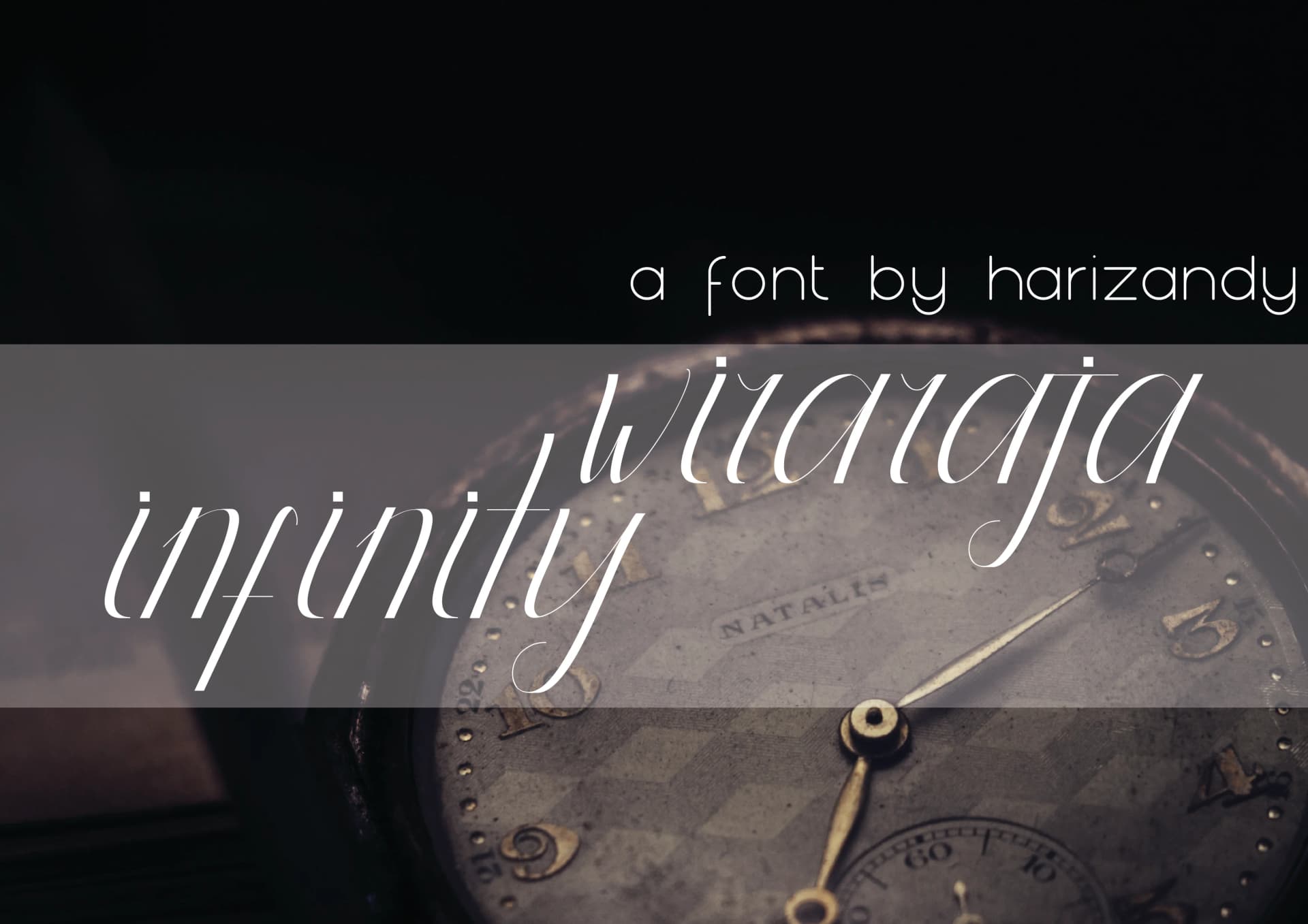
About Infinity Wiraraja Font
Infinity Wiraraja by harizandy is a handwritten script font that brings flowing, organic elegance to display and headline applications. This typeface captures the warmth of traditional pen-on-paper letterforms while maintaining the clarity and consistency needed for professional use across both print and digital mediums. The subtle variations in stroke weight and flowing letter construction create an authentic, artisanal quality that feels genuinely personal without compromising legibility.
The font performs beautifully when applied to wedding invitation suites, sophisticated greeting card designs, and boutique product labeling where a handcrafted aesthetic commands immediate attention and builds trust with discerning audiences. It's equally suited for event stationery projects and luxury branding applications that benefit from a more human, approachable visual voice rather than corporate standardization. Calligraphy enthusiasts will particularly appreciate how the letterforms echo traditional handwriting techniques and flourishes while maintaining excellent legibility across different point sizes and use cases. Whether you're creating formal event invitations, developing custom packaging for indie craft businesses, designing decorative signage, or building personal stationery collections, Infinity Wiraraja delivers the authentic handwritten warmth and distinctive character your creative projects deserve.
Infinity Wiraraja Font is a script font that shines as a display or heading face. Pair it with a clean sans-serif or serif font for body text — the contrast creates a clear hierarchy while the two styles stay balanced and easy to read.
Infinity Wiraraja Font